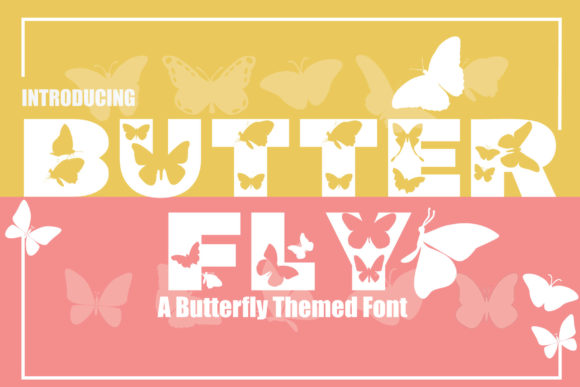
The Butterfly Effect: How a Lovely Font Can Transform Your Designs
I still remember the time I was working on a project for a children’s book, and I just couldn’t find the right font to match the playful yet adventurous vibe of the story. The client wanted something friendly, yet assertive, and I was determined to deliver. That’s when I stumbled upon the Butterfly font, and it was love at first sight! 💕
Butterfly is a lovely, thick lettered display font that has become a staple in my design toolbox. Its unique blend of friendliness and assertiveness makes it perfect for a wide range of projects, from children’s books and crafts to branding and advertising. In this article, I’ll share my honest review of the Butterfly font, provide a practical guide on how to use it, and explore similar fonts and alternatives.
My Honest Review of Butterfly Font
- 💬 The font’s thick, bold letters make it perfect for display purposes, such as titles, headings, and signage.
- 🎨 The font’s playful, friendly vibe makes it ideal for projects that require a touch of whimsy and personality.
- ✅ The font is highly legible, even at smaller sizes, making it versatile for various design applications.
- 🌈 The font comes in a range of styles, including regular, bold, and italic, giving designers plenty of options to experiment with.
- ⚠️ The font may not be suitable for body text or long-form content, as its bold style can be overwhelming for extended reading.
- 🤔 Some users may find the font’s playful style too casual for formal or professional projects.
The Designer Inspiration Behind Butterfly Font
The Butterfly font was designed with the intention of creating a friendly yet assertive display font that would inspire creativity and playfulness. The designer, inspired by the beauty and transformation of butterflies, aimed to create a font that would evoke a sense of wonder and joy.
Q: What is the best way to use Butterfly Font in a design project?
A: The best way to use Butterfly Font is as a display font, such as for titles, headings, or signage. Its bold style and playful vibe make it perfect for adding visual interest to your design.
Q: Is Butterfly Font suitable for body text or long-form content?
A: No, Butterfly Font is not recommended for body text or long-form content, as its bold style can be overwhelming for extended reading. Instead, use it for display purposes or headings.